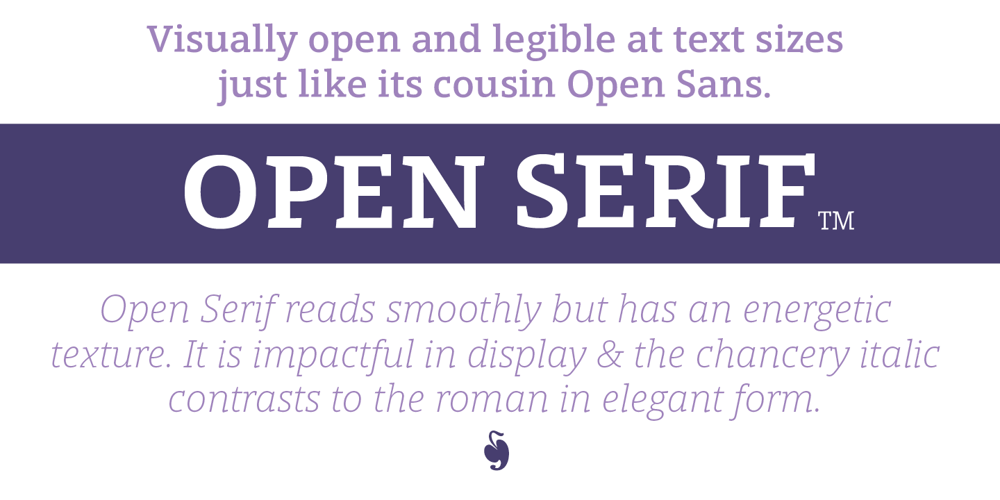
Open Serif Font Family was designed by Steve Matteson and published by Matteson Typographics. Open Serif contains 14 styles and family package options. OPEN SERIF – answering the question “what font pairs well with Open Sans?”. Designed by Steve Matteson for extraordinary legibility and comfortable reading on screen and in print. Open Interpretation: Not quite Veronese – not quite Egyptian. A dash of panache in an otherwise sturdy serif typeface. Open Serif is an elegant text and display typeface family. Open Interiors: Visually open and legible at text sizes just like its cousin Open Sans. Open Serif reads smoothly but has an energetic texture. The chancery style italic contrasts nicely to the roman in a full bodied nod to Italian Renaissance forms. Open Type: Open Serif is full of OpenType features including Small Capitals for the Roman, Italic Swash Capitals and Old Style Figures for both. Open Translation: Supporting all the languages available in Open Sans, Open Serif completes the translation capabilities of international companies. Extended text is more pleasant to read in a serif typeface so go global with a unified typeface family! Open Face: Open Serif Titling is an elegant companion to round out the family. These ‘open-face’ capital letters are ideal for initial letters, mastheads, titles and decoration.